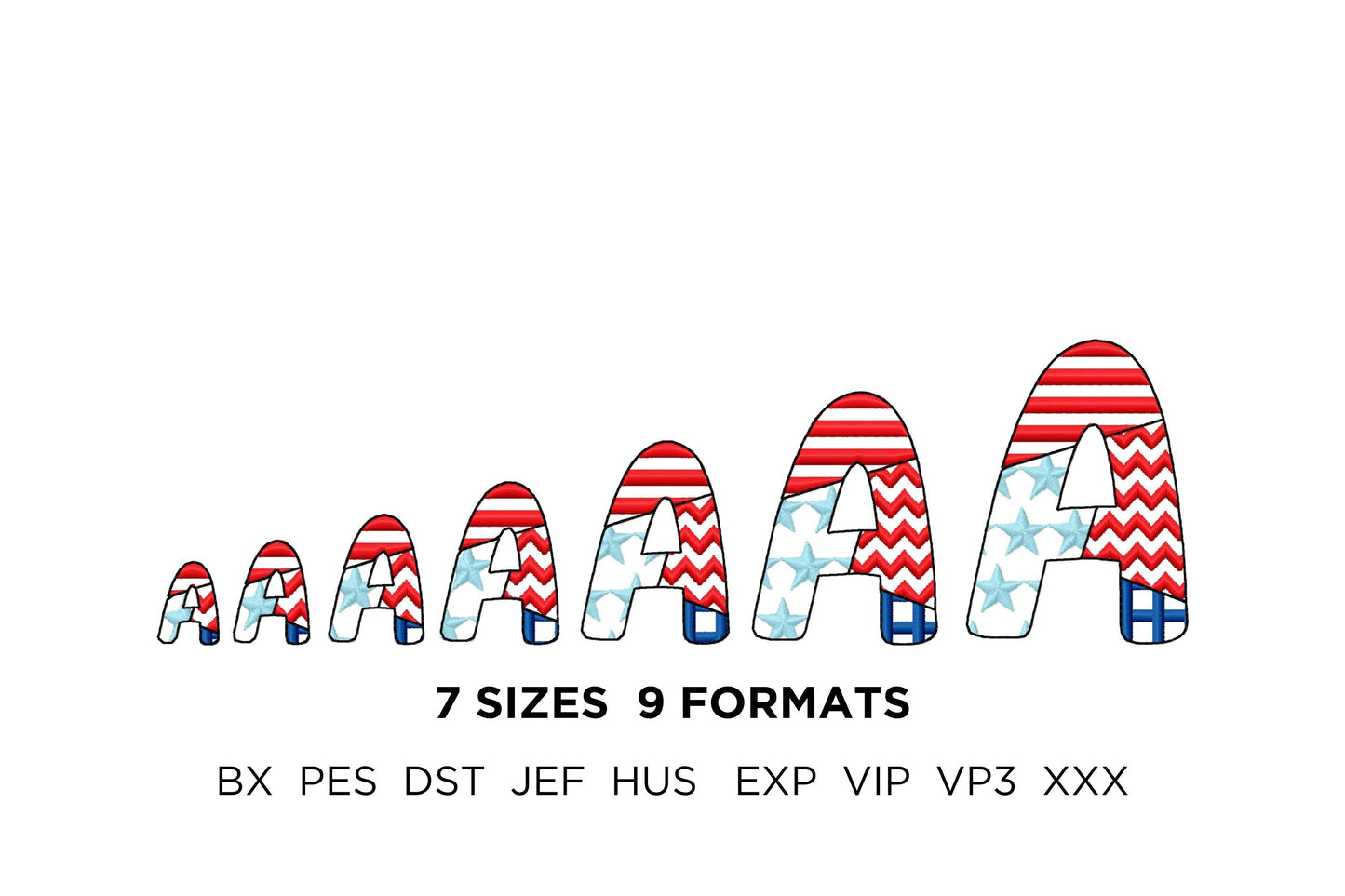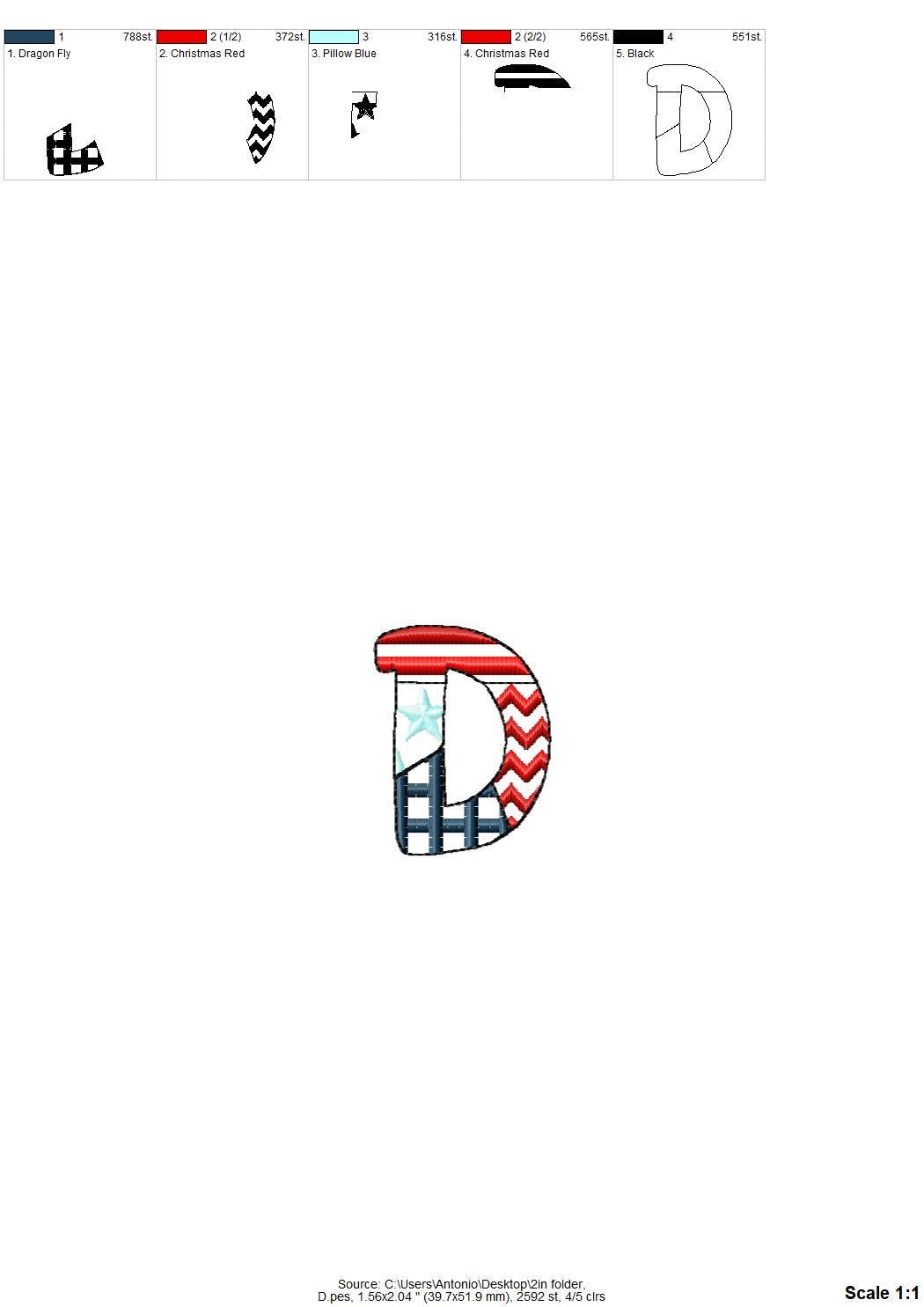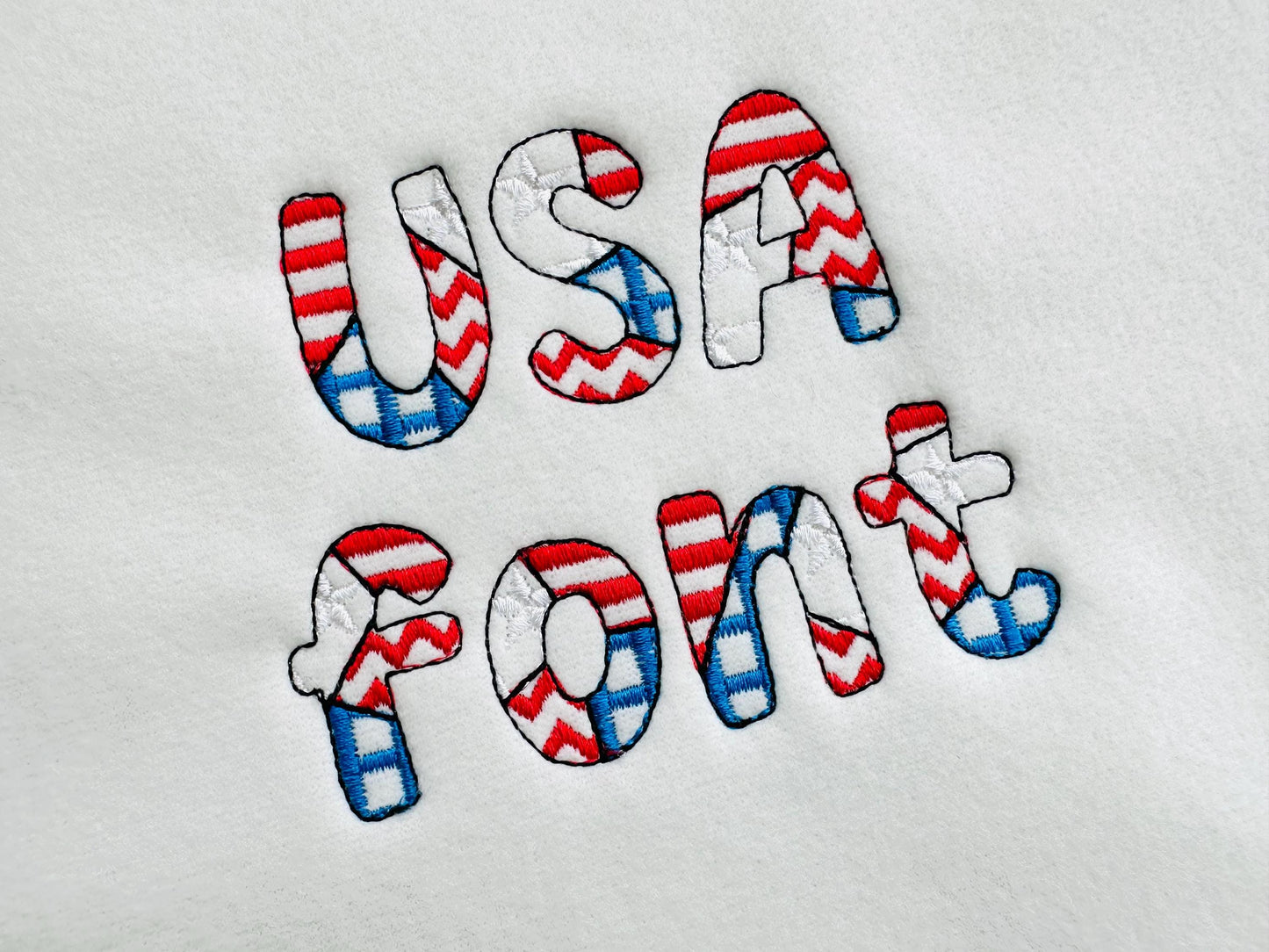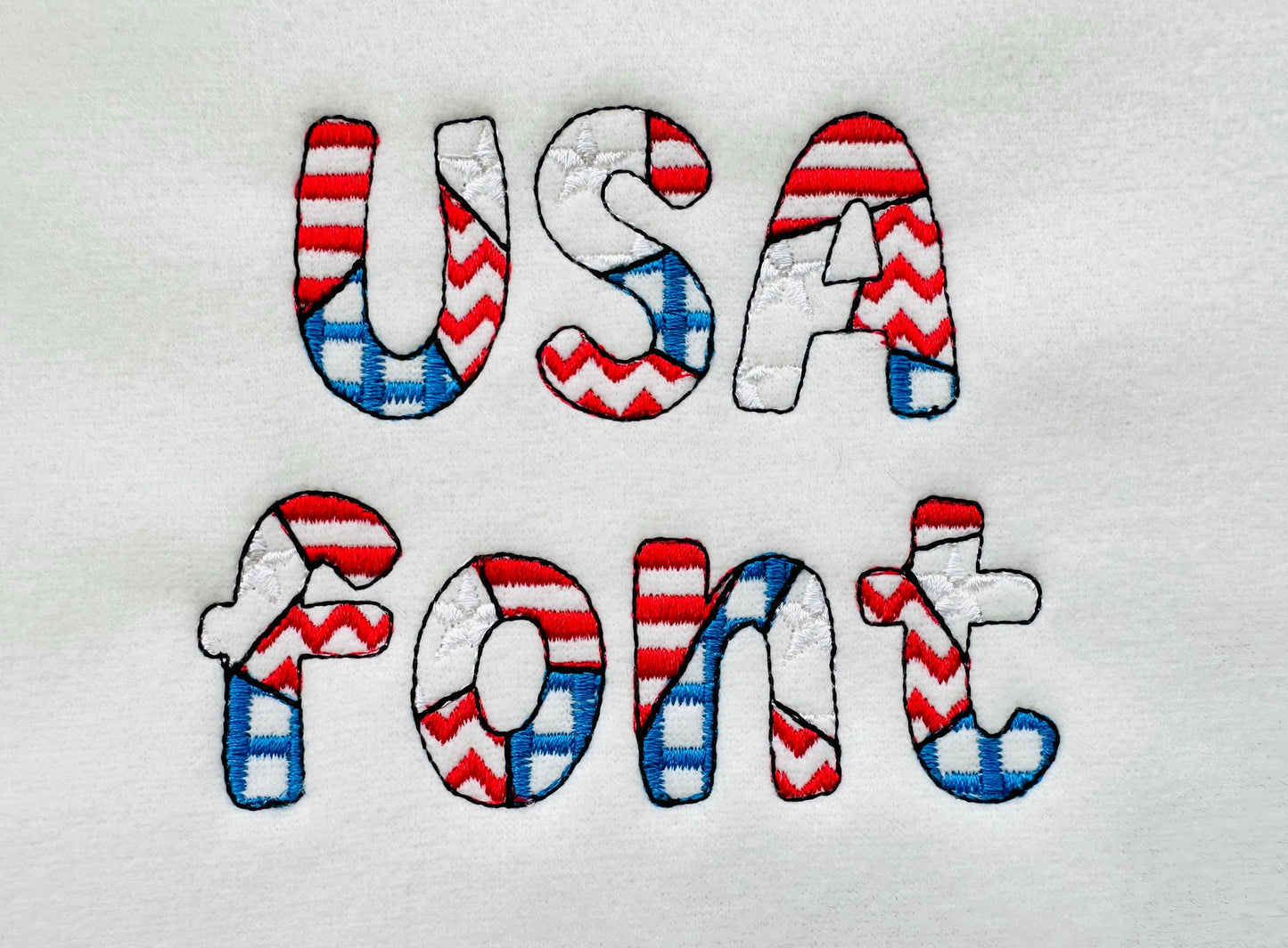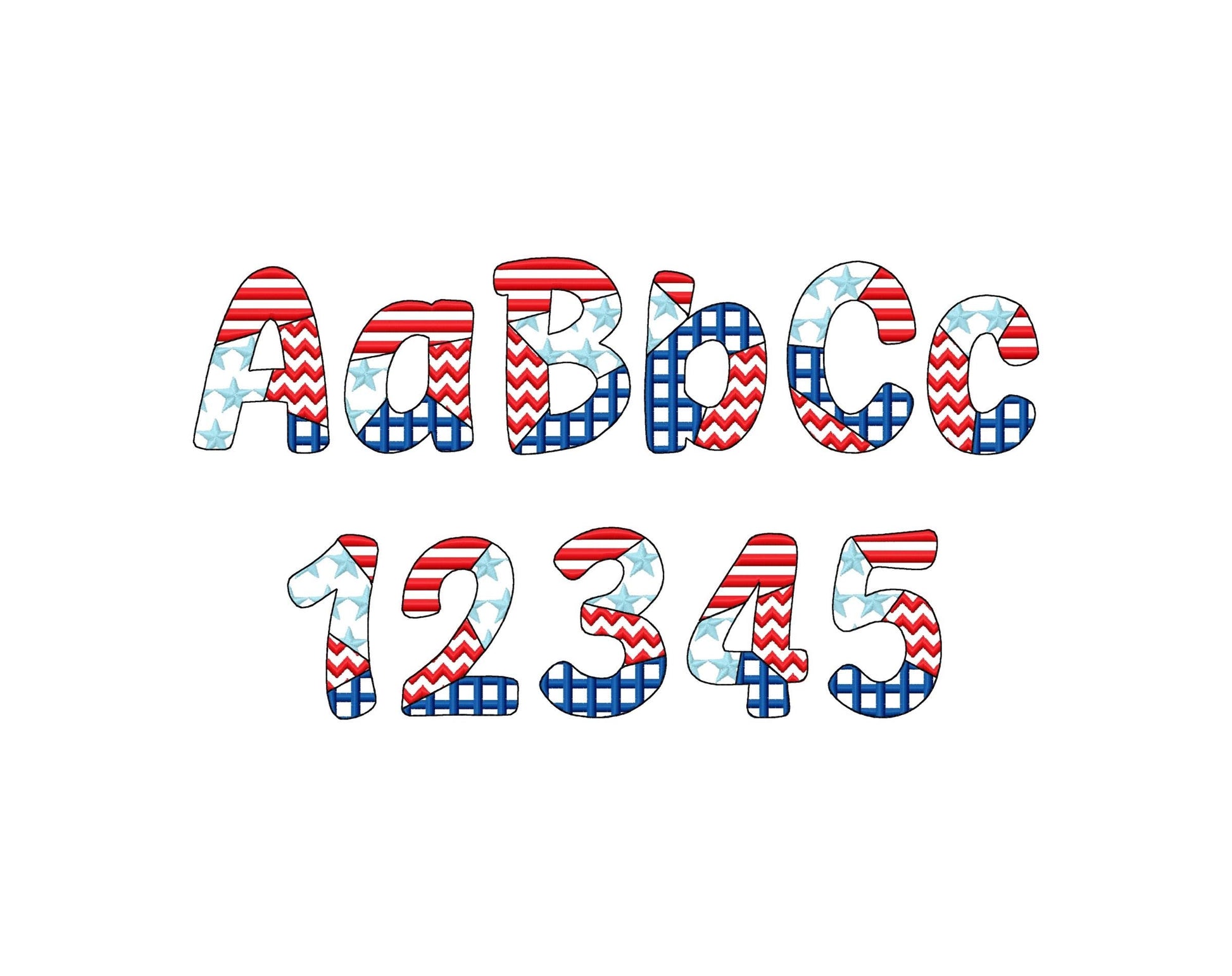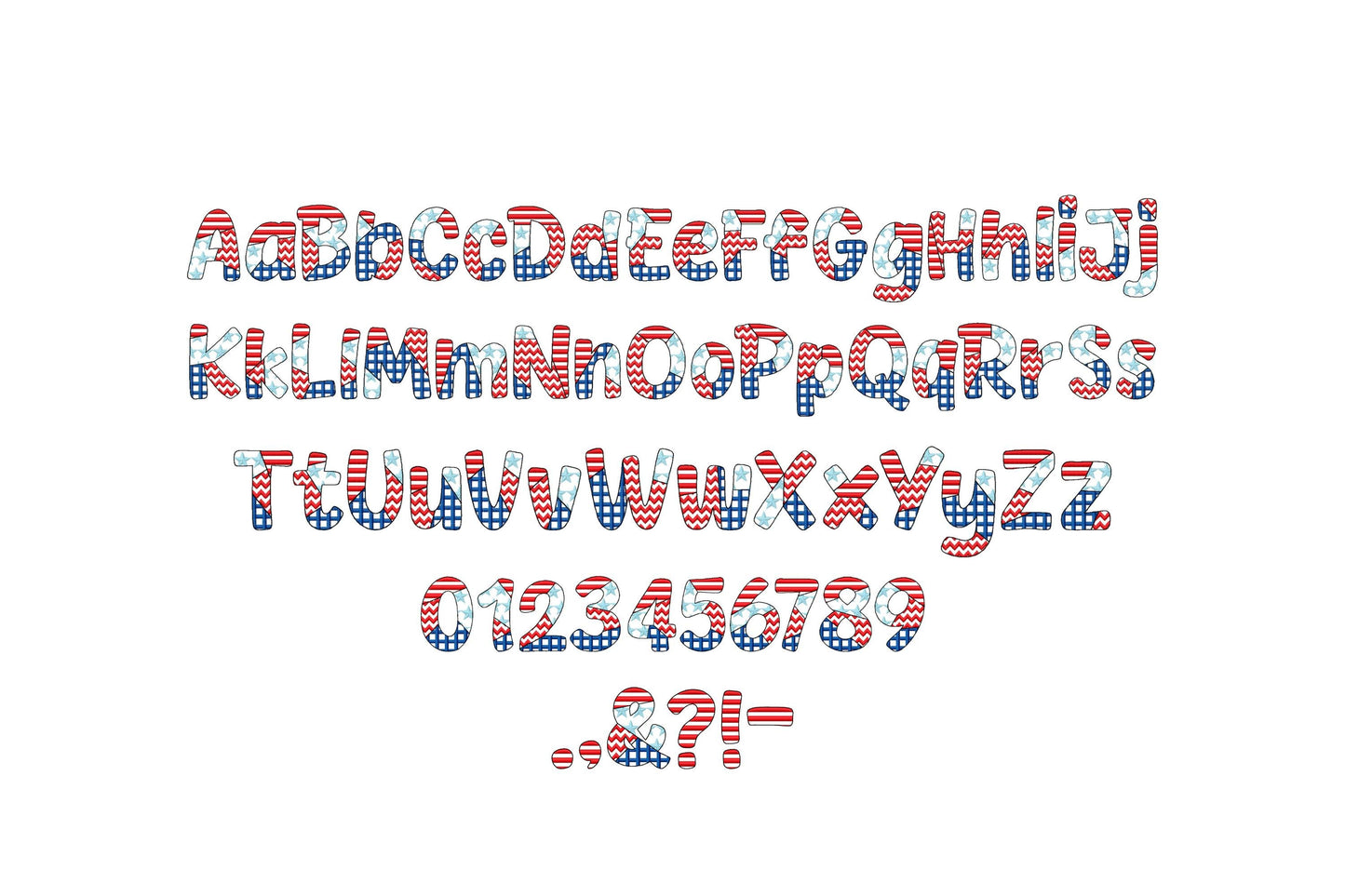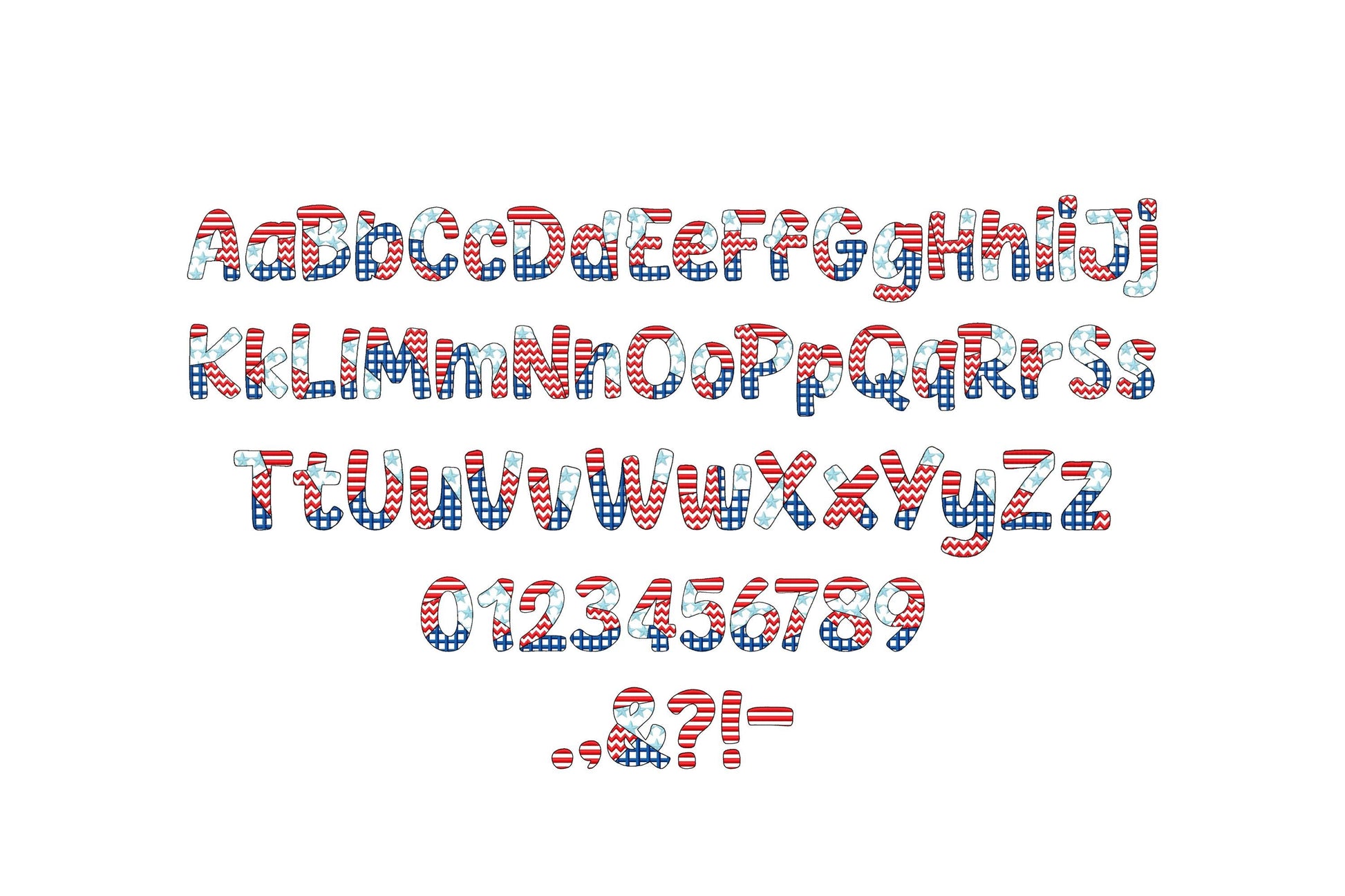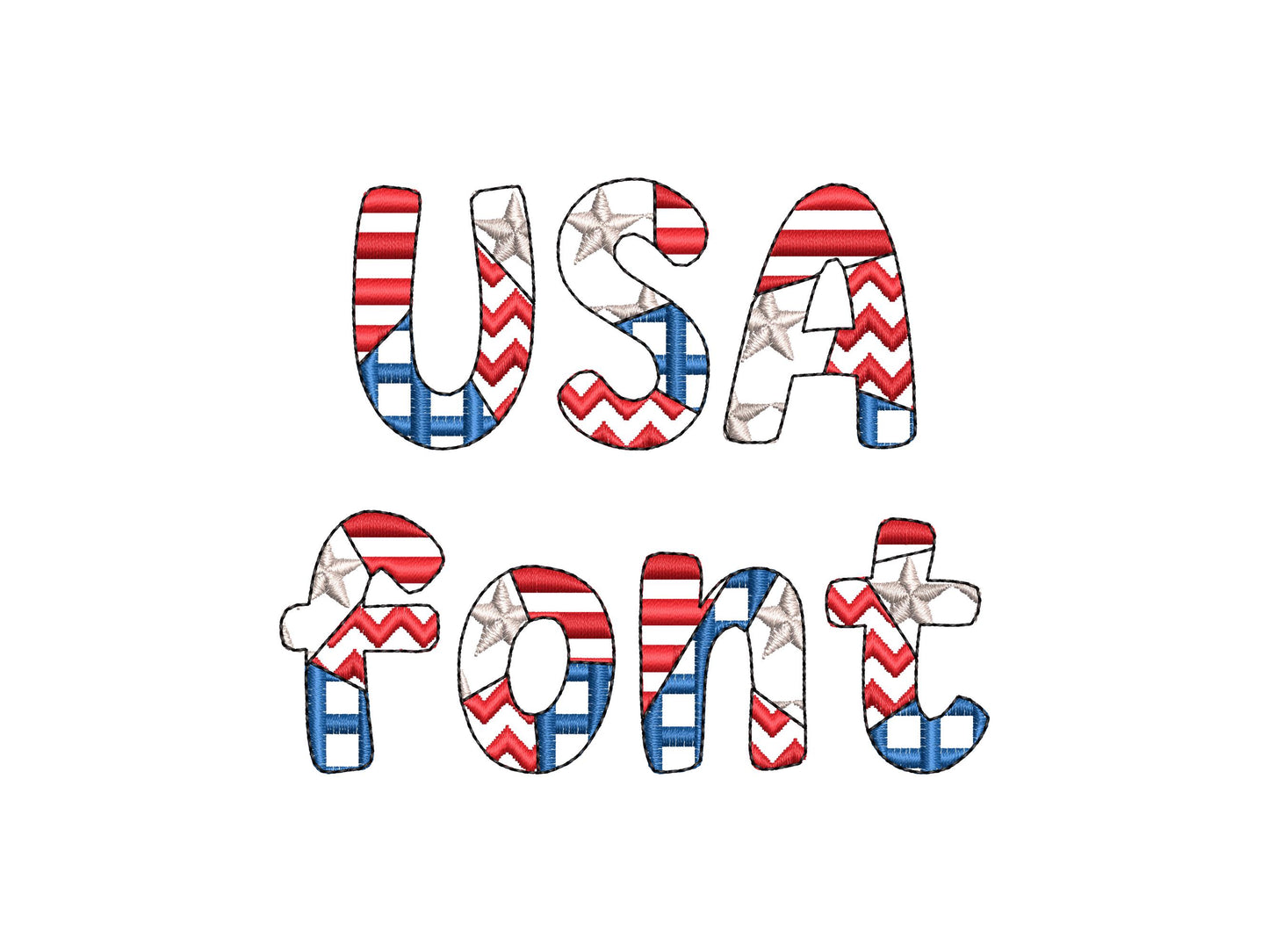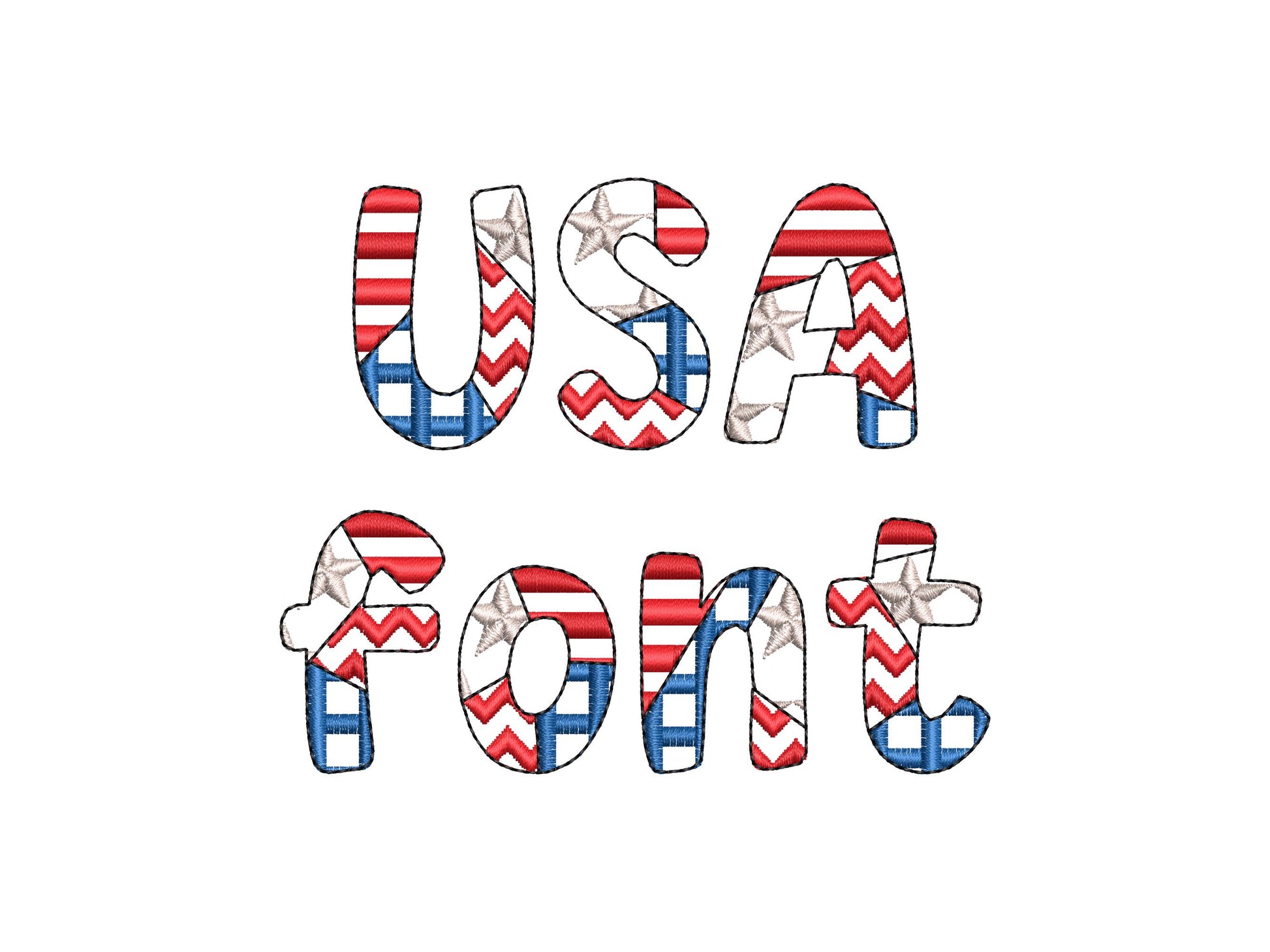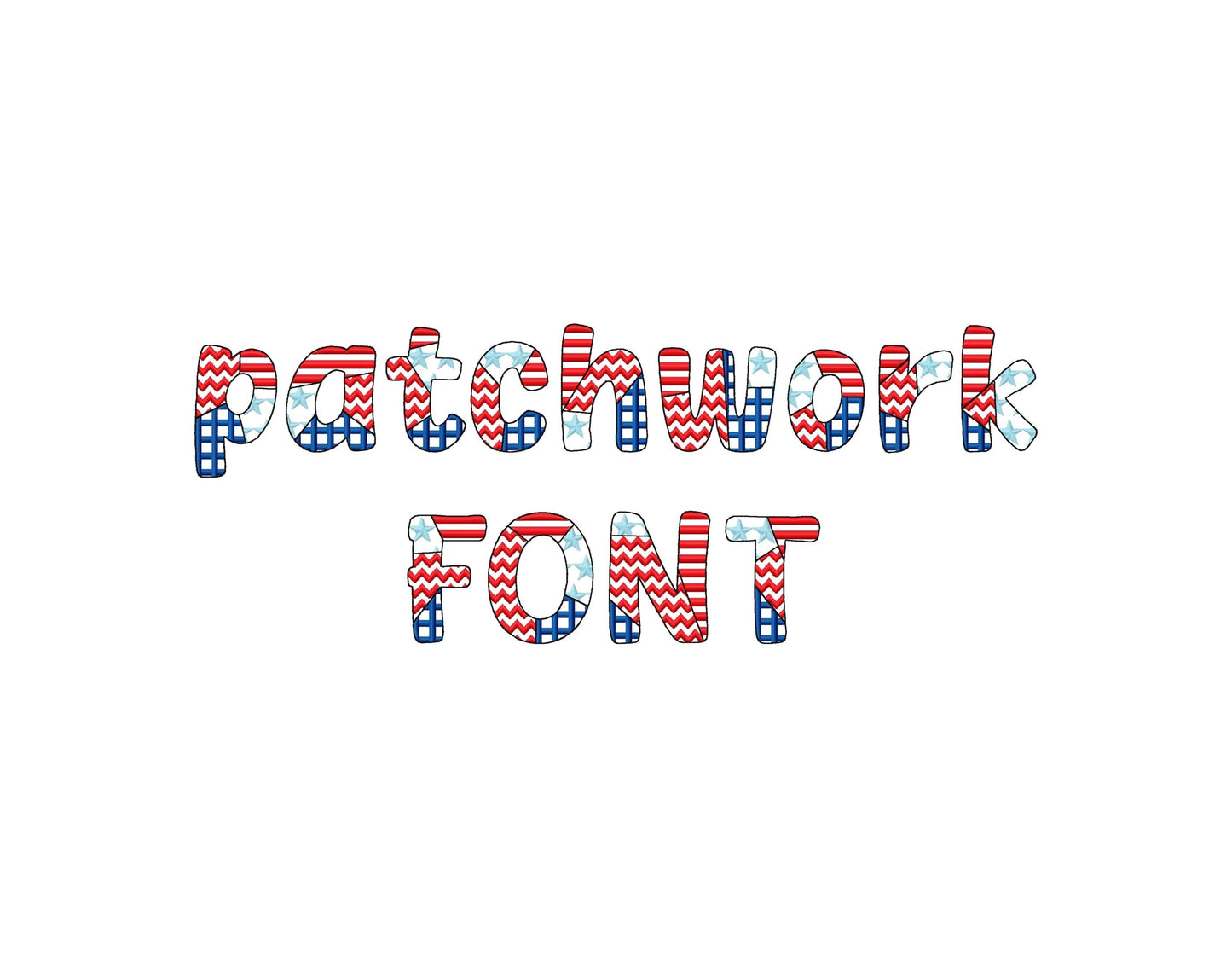
Patchwork USA Flag Patterned Font
Or click to open the linkA patriotic patchwork font filled with a USA flag pattern, in small sizes. Great for Fourth of July shirts, pockets, bags and names.
Uppercase and lowercase letters, numbers 0 to 9 and punctuation. Seven sizes: 0.8, 1, 1.3, 1.6, 2, 2.5 and 3 inches. The pattern is stitched inside an outline and the fabric shows through.
- USA flag patchwork font
- Uppercase, lowercase, numbers 0 to 9, punctuation